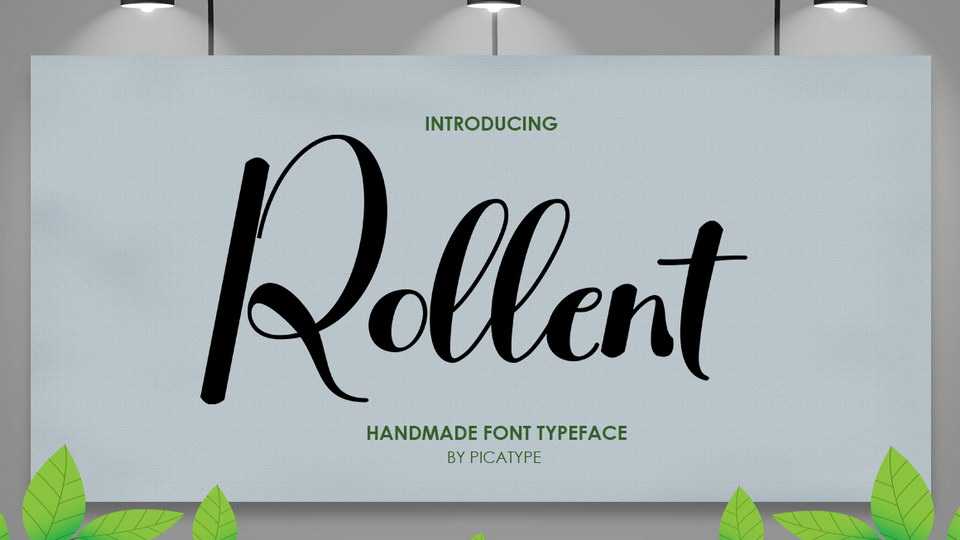
Download Rollent font, a handmade script, based on the expression of the signature style that flows freely, friendly and organic, hand painted with love.
Designer: Picatype Studio